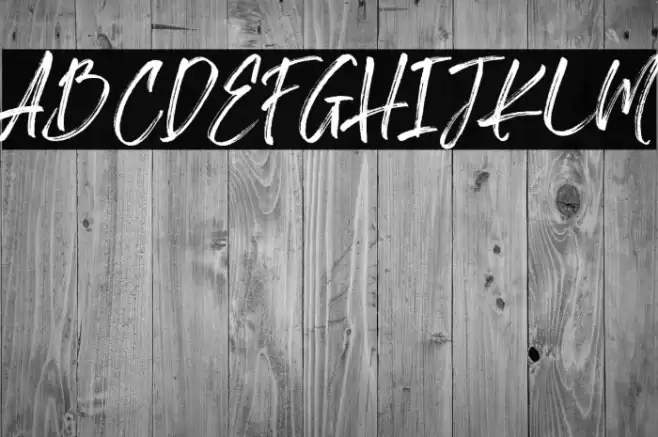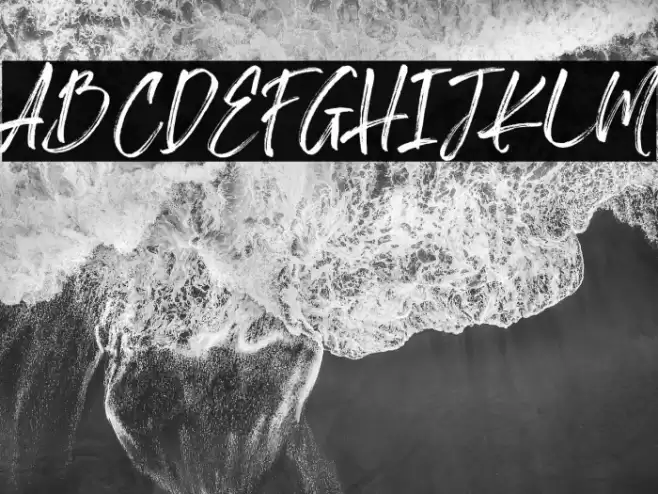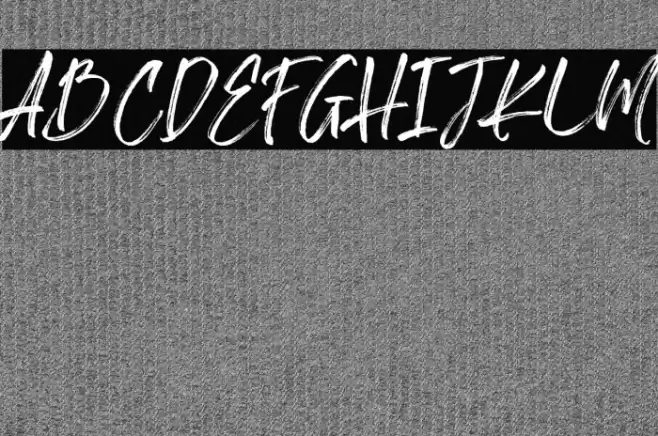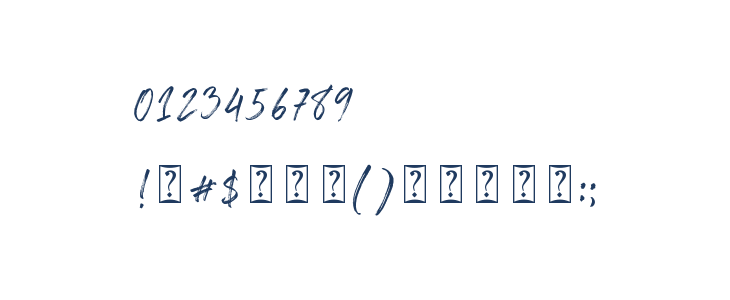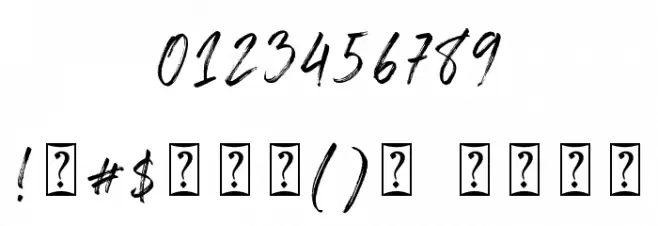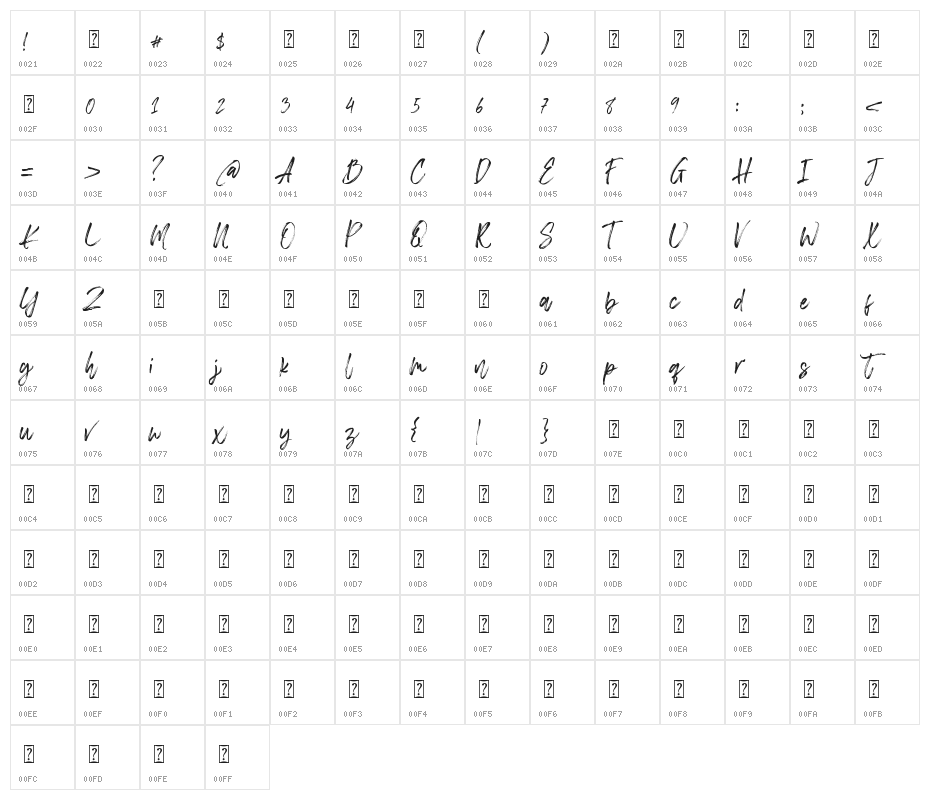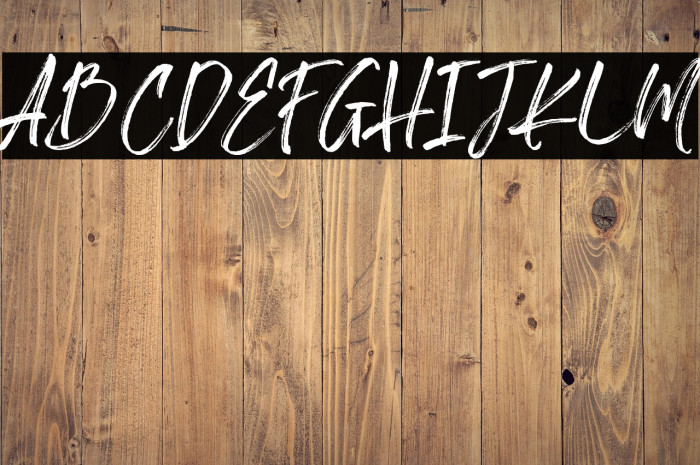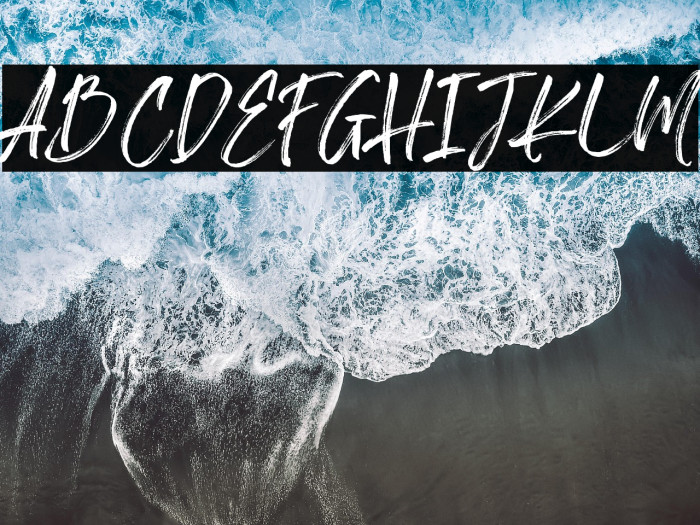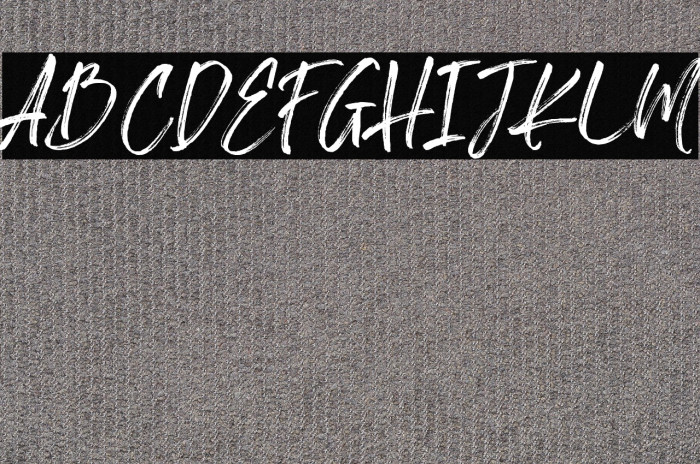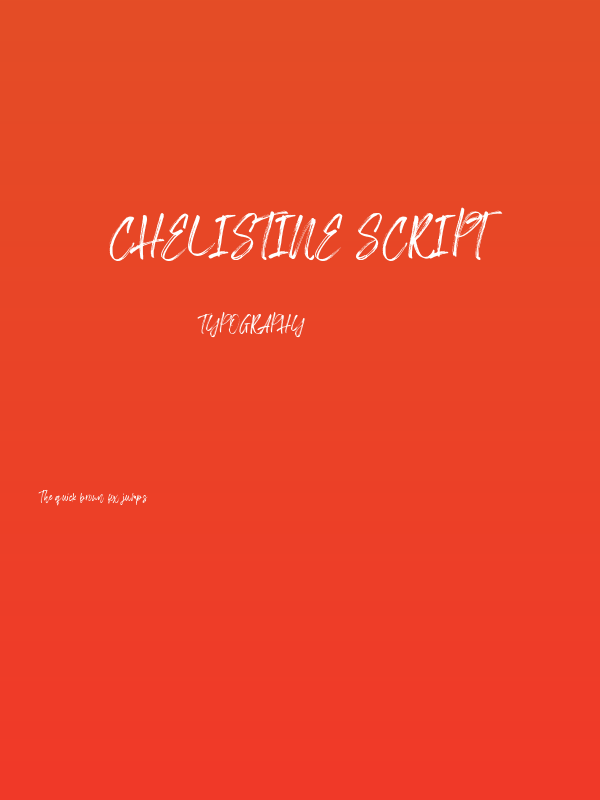
Chelistine Script Font
Chelistine Script Description
This font exudes a dynamic and artistic flair, characterized by its fluid, brush-like strokes that convey a sense of movement and energy. The uppercase letters are bold and expressive, with varying stroke widths that add a touch of spontaneity. The lowercase letters maintain this lively style, offering a cohesive yet playful appearance. Numbers and special characters follow suit, ensuring a consistent aesthetic throughout. The overall impression is one of creativity and elegance, making it suitable for projects that require a personal and artistic touch.
A dynamic, brush-style script font with expressive strokes from Uncategorized fonts.
- Font: Chelistine Script
- Proposed Projects: Ideal for wedding invitations, greeting cards, branding projects, and artistic posters.
- Use Case: Logos, Headlines, Artistic projects